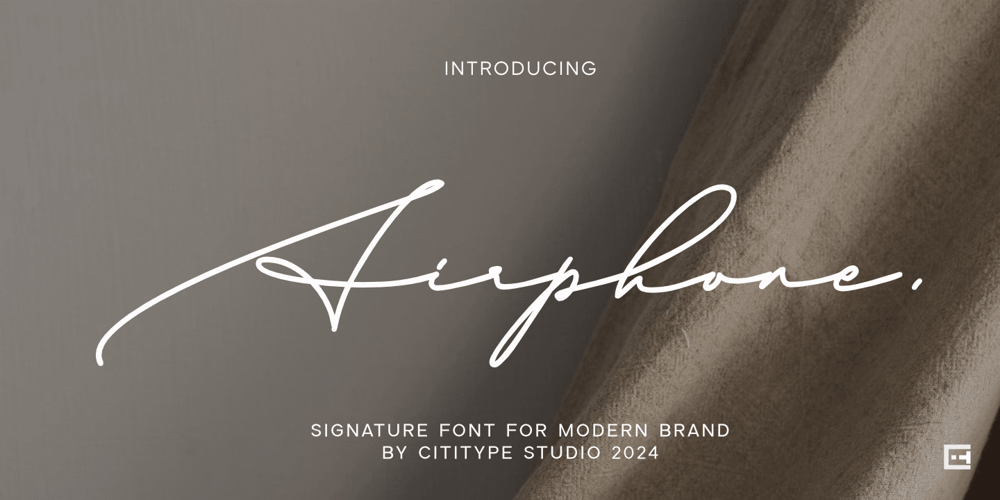
Airphone Font Family was designed by Muhammad Ridha Agusni, Siti Saribanon Nurjannah and published by Cititype. Airphone contains 1 styles and family package options. Introducing Airphone, a graceful thin line Script Font with a soft, natural flow. Its easy, free-spirited uppercase strokes bring a light and breezy feel to your designs. The font pairs contrast with harmony, creating a beautifully balanced and chic aesthetic. Perfect for those seeking a subtle yet stylish look, Airphone is a wonderful choice for modern brands. Its understated elegance makes it ideal for logotypes, offering a refined yet approachable vibe that helps your brand shine with quiet confidence.